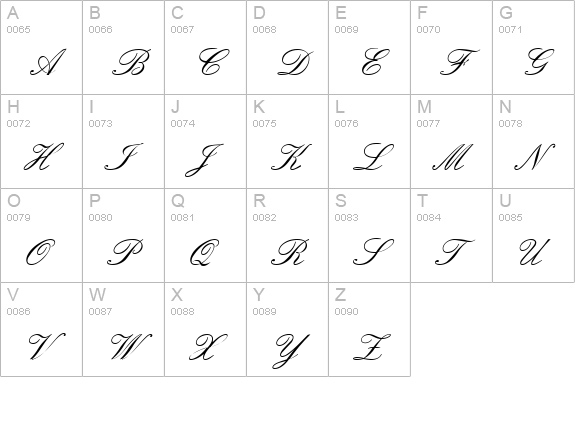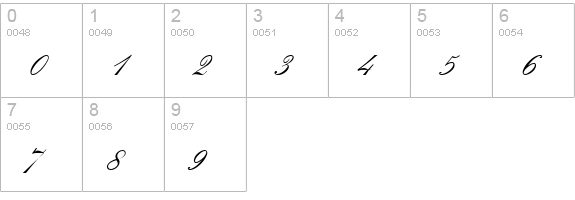
FormalScript Regular Font Details
FormalScript Regular is the standard, neutral variant in the FormalScript typeface family \xE2\x80\x94 well suited to general body text, paragraphs, and standard typographic work.
FormalScript Regular font exudes elegance and sophistication with its classic script style. This font is perfect for adding a touch of formality to invitations, event signage, branding materials, and more. The graceful curves and intricate details of FormalScript Regular make it a timeless choice for projects that require a touch of refinement. Best of all, FormalScript Regular is available for free download at FontsMarket.com. Whether you're a designer looking to elevate your projects or an individual in need of a stylish font for personal use, FormalScript Regular is a versatile and beautiful option that won't cost you a penny. Download this exquisite font today and add a touch of class to your designs.